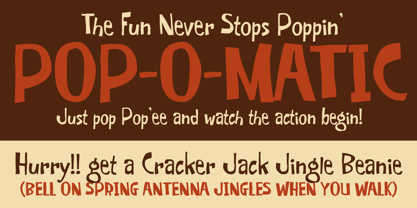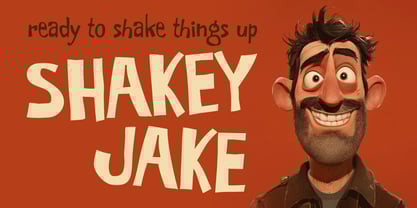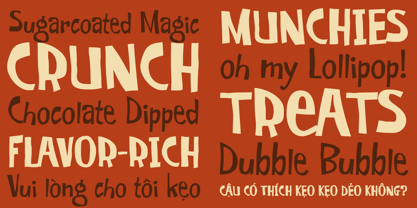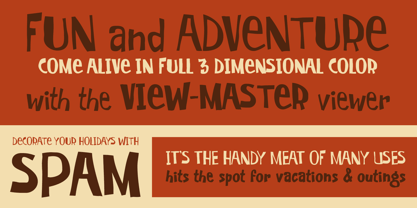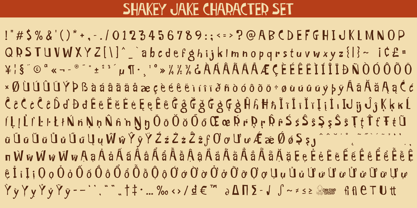
Shakey Jake
by One Eyed Squid
The Shakey Jake Font Family was designed by Brian J. Bonislawsky, Dave Cohen and published by One Eyed Squid. Shakey Jake contains 2 styles and family package options.
Shakey Jake is wobbly and wild,
Been like that since he was a child,
He's wiggly and giggly and make no mistake,
His font is real shakey just like old Jake.
The characters jaggy that's how they were brewed,
He's regular and bold such a well rounded dude,
Hand-drawn letters prove he ain't fake,
Nobody's as shakey as old Shakey Jake.
(Shakey Jake contains an extended Latin character set with added Vietnamese support.)
Designers: Brian J. Bonislawsky, Dave Cohen
Dave "Squid" Cohen & Brian "Stiggy" Bonislawsky combine their fontmaking talents to bring you an array of fun and entertaining typefaces loaded with animated and diverse retro flavor.You may know Dave Cohen's fonts from Sideshow and Neapolitan type foundries, as you may know Brian Bonislawsky's fonts from Astigmatic (AOETI), Grype, Pink Broccoli, Monogram Fonts Co., Stiggy & Sands, and VersusTwin type foundries.So what is this foundry all about? It's all about bringing collaborative skills to bear to express more of their crazy typographic ideas and create even more exciting fonts to the design community.